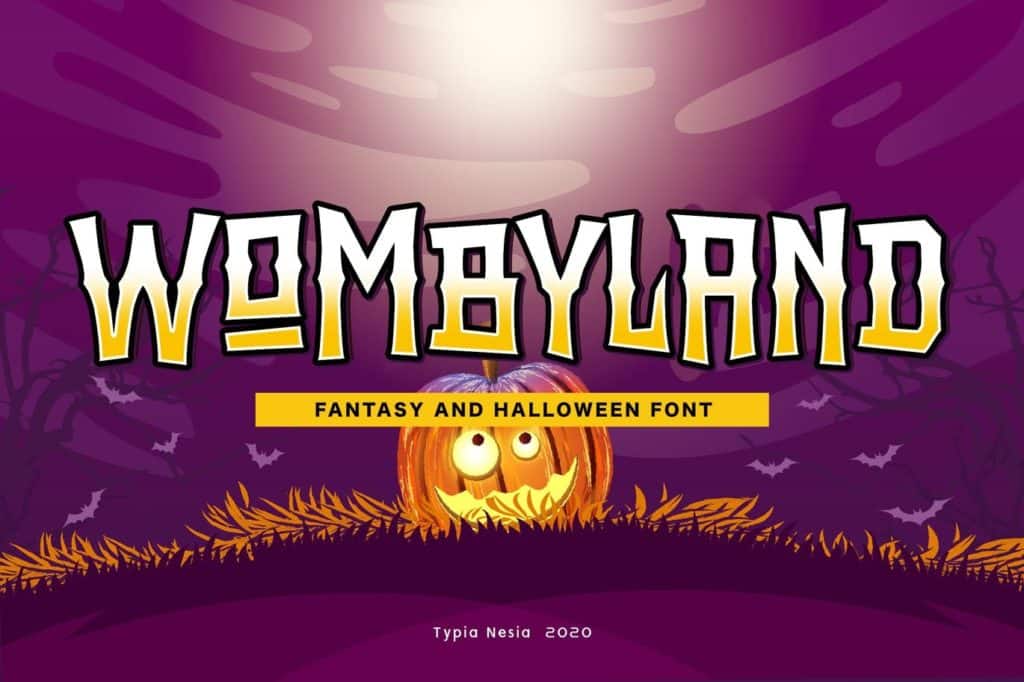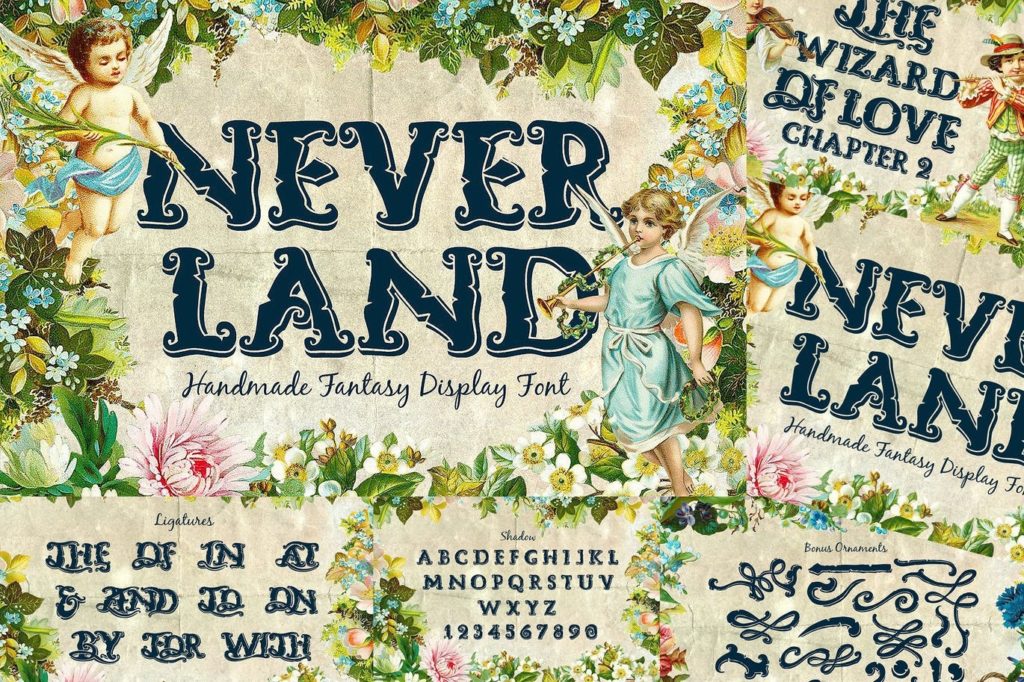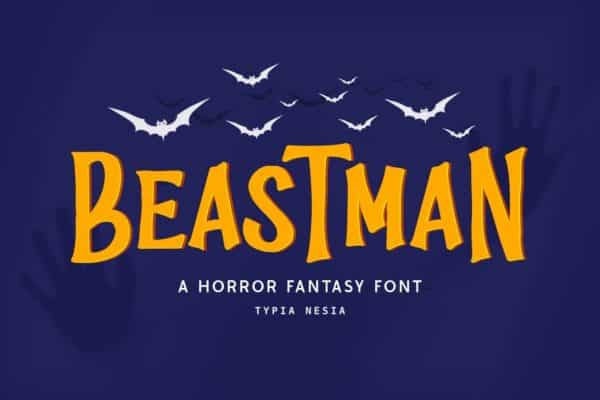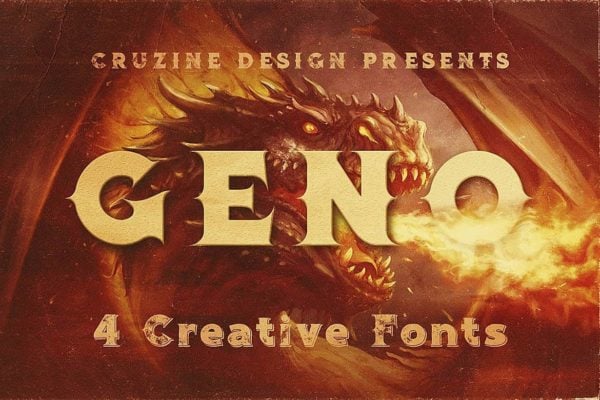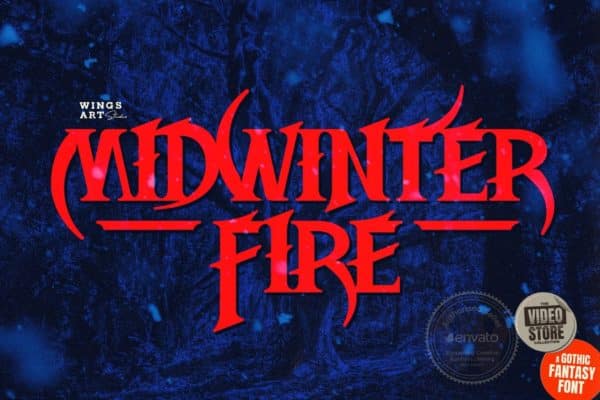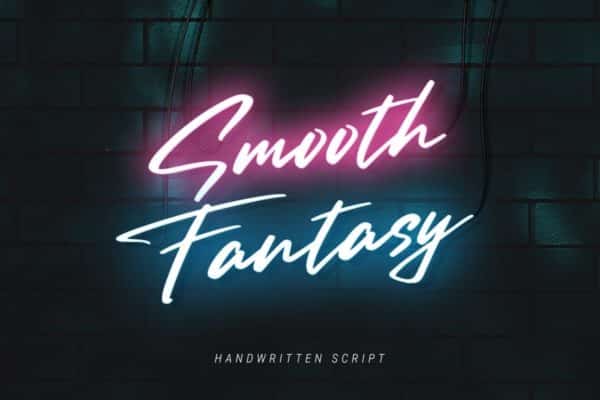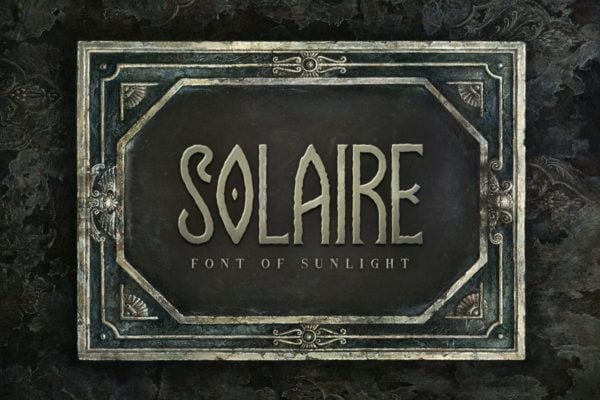
A fantasy font makes for the perfect use in posters, logos, branding, modern advertising design, cartoons, and more, there is no doubt that there is a wide range of fantasy fonts available on the web.
To help make your search easier, we have chosen the best 20+ Best Fantasy Fonts, perfect for fantasy graphic design, branding, logo design and much more.
- Fantasya Hand Drawn Fantasy Font
- King Crayon Fantasy Font
- Solaire Rough
- Fantasy Bons
- Geno Typeface
- Smooth Fantasy Script
- Midwinter Fire: A Gothic Fantasy Font
- Legendary Runes – Fantasy Font
- Ghostoons – Spooky Fantasy Font
- Happy Gnome – Fantasy Font
- Magic Curls Font
- Algae Fantasy Fonts
- Wonder Magic – a Magic Fantasy Font
- Wombyland – Fantasy Game Font
- Vanderick Fantasy Game Font
- Giftaway – Romance Fantasy Serif
- Little Foxie – Display Font
- The Simbiod – Classic Adventure Fantasy Game Font
- Neverland Fantasy Display Serif Vintage Font
- Beastman – Fantasy Horror Font
- Wolvercote – A Fantasy Display Font
- Fairytaler | Fantasy script font
- Flamingo – Vintage Style Font
- Belmont Typeface
- Moon Firefly
- Guest Lunch Fantasy Font
- Mysteria Fantasy Font
- Pirate Hunter
Fantasya Hand Drawn Font
If you are looking for a fun display font that is perfect for your books, games, titles, movies, and more, then you should check out this font. Fantasya is a normally-spaced font and comes in 2 versions- regular and bold. It includes uppercase and lowercase letters, numerals, punctuations, alternates, and ligatures.
One of the interesting features of this font is that each uppercase letter in this font has at least three other alternatives to choose from, allowing you to make a multitude of letter combinations that will result in so many different designs.
King Crayon Font
Introducing a simple, cute, and multipurpose handmade font suitable for a wide range of projects including, children’s books, logos, quotes, titles, and more. King Crayon is a fantasy font from the sans-serif family of typefaces.
It comes with normal spacing and can be optimized to any size. This font comes with OTF, TTF, and EOT files, in addition to numerals, symbols, etc., making it suitable for various projects.
Solaire Rough
This is a fantasy-themed font with a runic feel to it. This font comes with all-caps letters, in addition to some alternates, which can be toggled via caps lock. It is a normally-spaced font that can be optimized to a large (display/poster) size. You can use the Solaire font for posters, titles, books, etc.
Fantasy Bons
Presenting a font inspired by serif fonts as usual but made with manual rough style. Fantasy Bons font comes with two styles of fonts that have unique designs. The distorting characters of the letters make them shorter or taller than the normal font, which results in the font looking unique and different from others.
This font is ideal for horror-themed designs such as Halloween designs or video titles, book covers, and so on.
Geno Typeface
Geno Typeface is a bold, vintage, or fantasy style display font suitable for your new projects. It belongs to the serif family of typefaces and comes with normal spacing. It includes four font files- regular & grunge, shadow & grunge, making it a perfect font of grunge, retro, fantasy, among other projects.
Smooth Fantasy Script
Here’s an amazing font that comes with a chic and natural handwritten style. Smooth Fantasy script font comes with uppercase and lowercase characters, numerals, punctuations, ligatures, and multilingual support. You can use this font for logotype, quotes, branding, etc.
Midwinter Fire: A Gothic Fantasy Font
Meet a font inspired by gothic cathedrals, ancient myths, and campfire horror stories. Midwinter Fire is a versatile font that belongs to the serif family and includes all-caps letters, alternative characters, underlines along with numerals, punctuations, and multilingual support. The classic style of the font makes it perfect for book covers, rock albums, titles, or even vintage projects. Moreover, this font is also a great choice for a decorative gothic look that remains readable in smaller sizes.